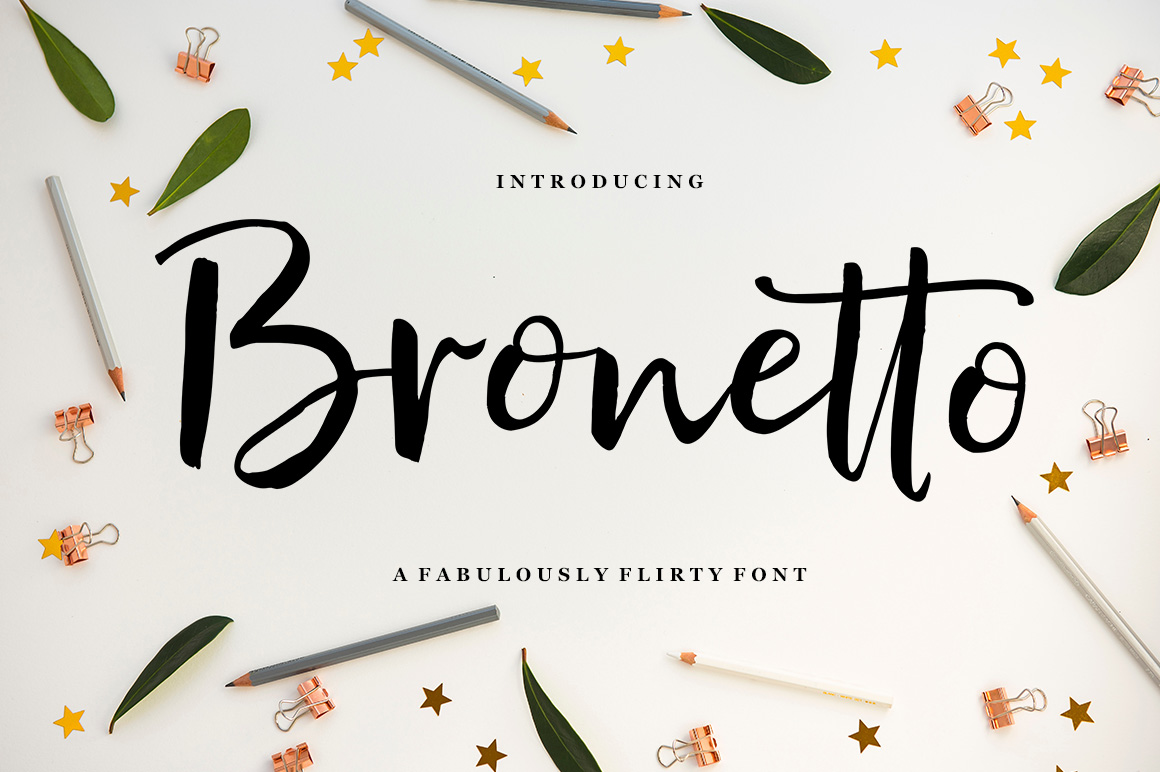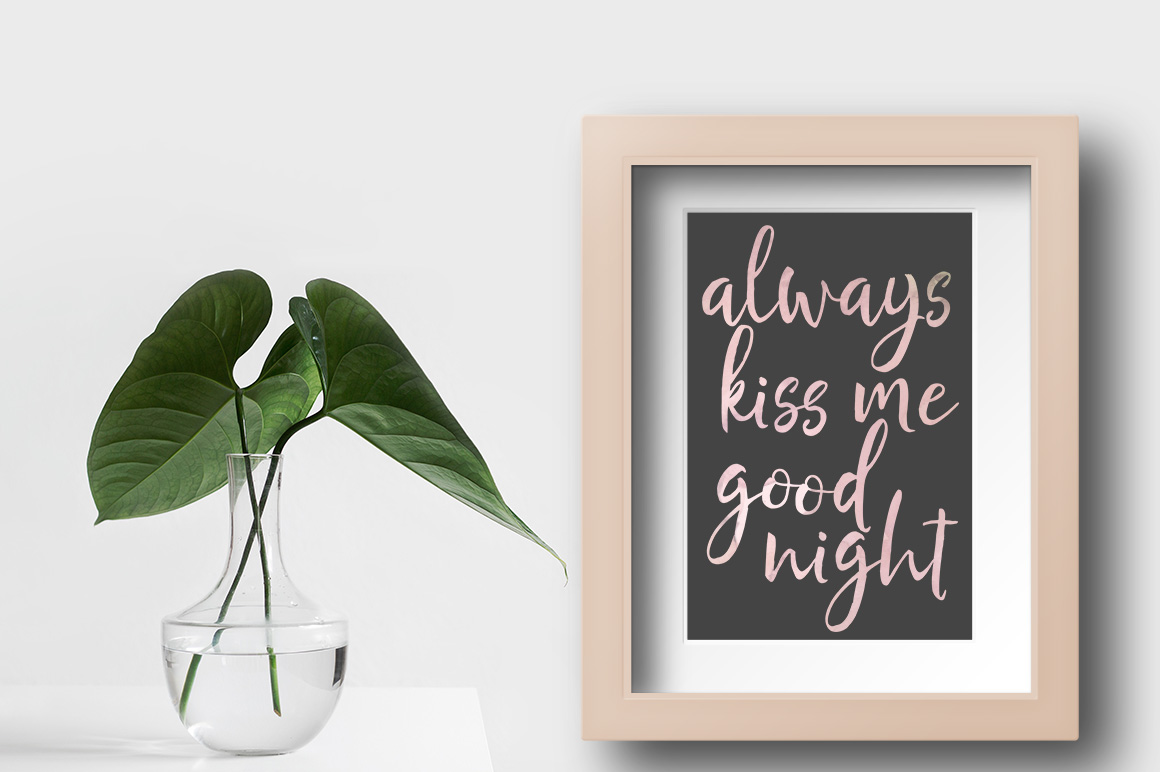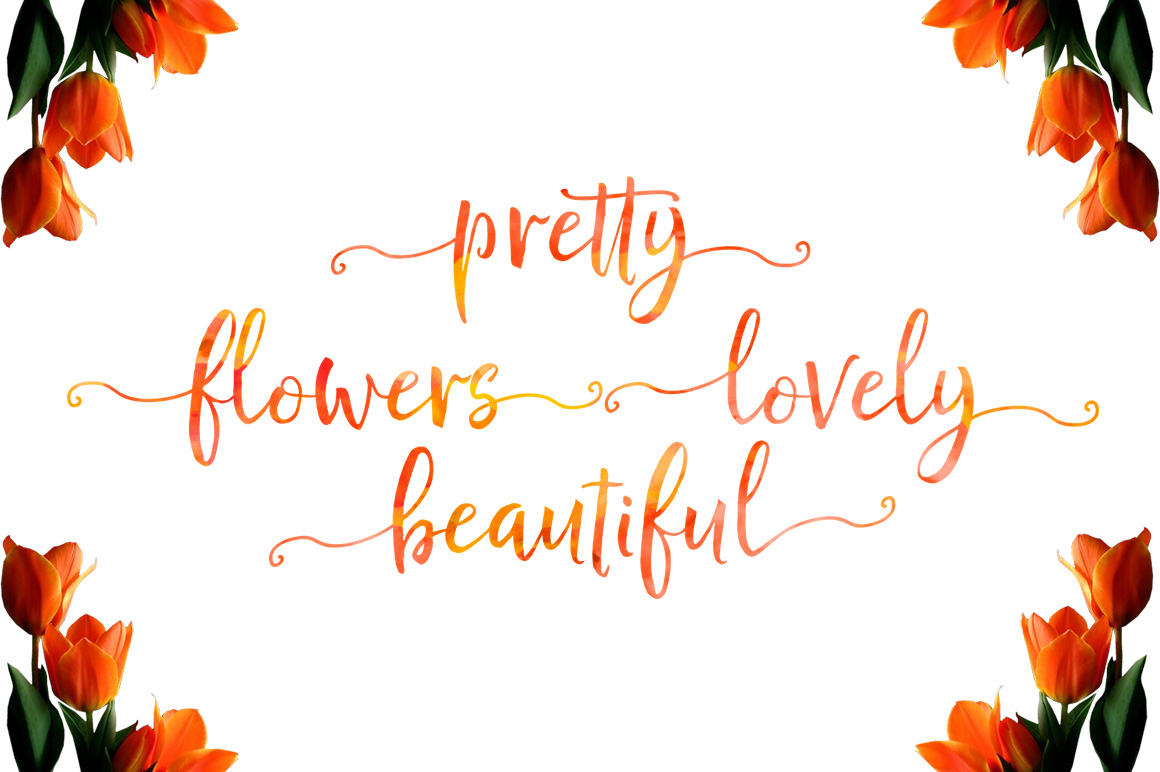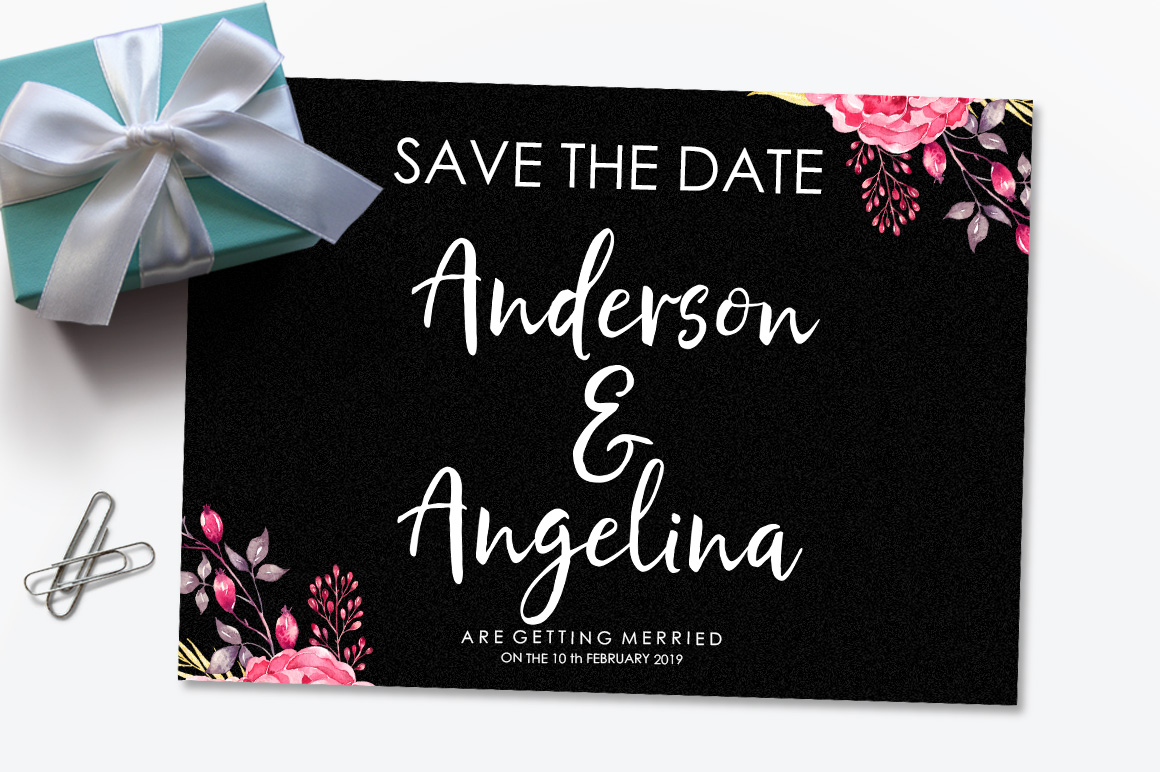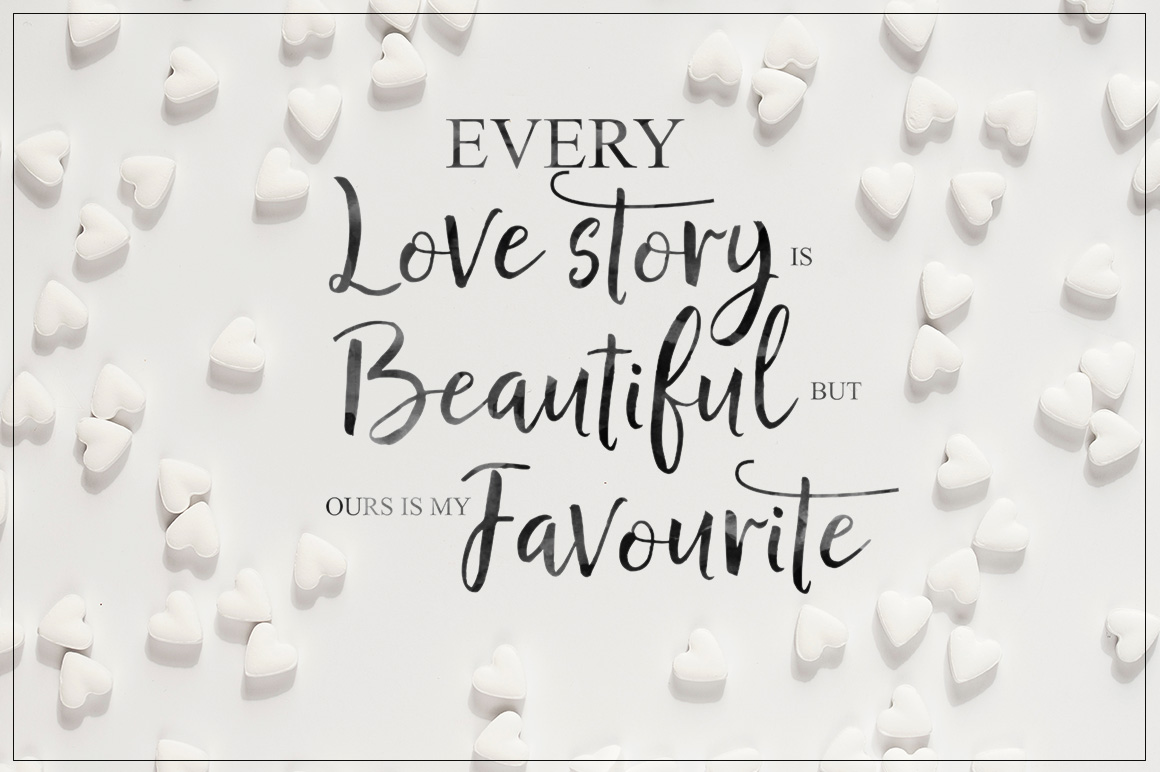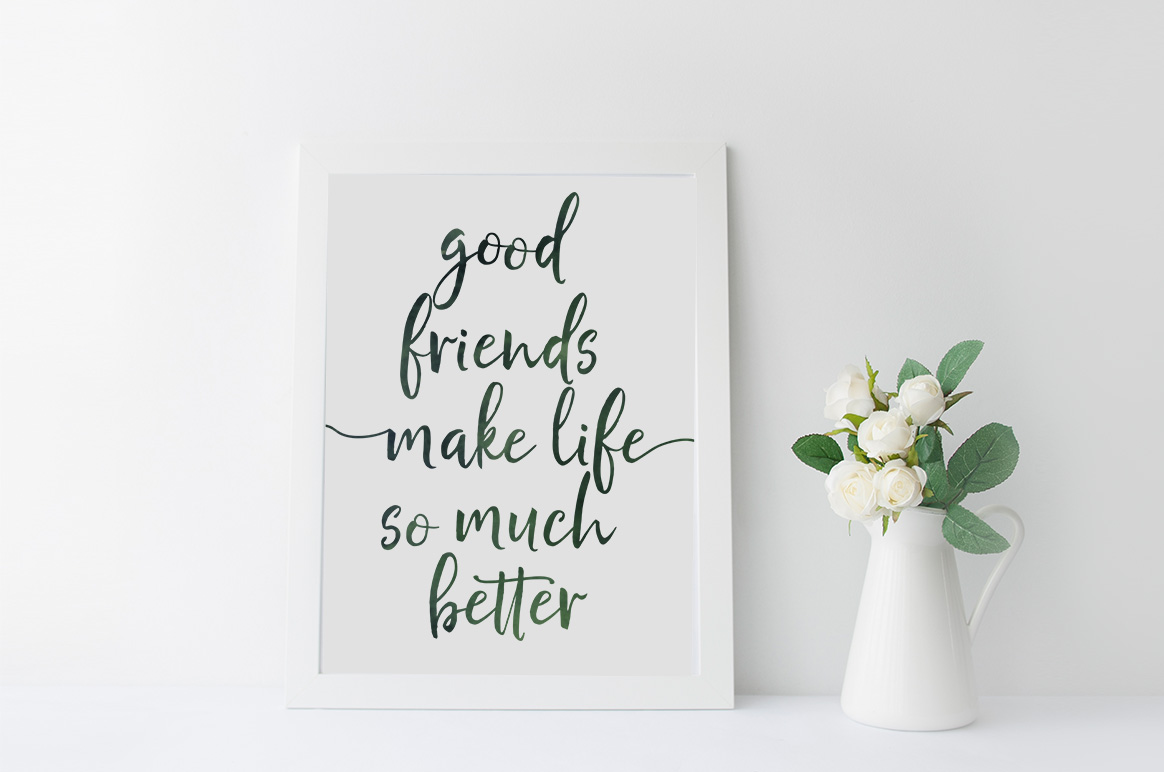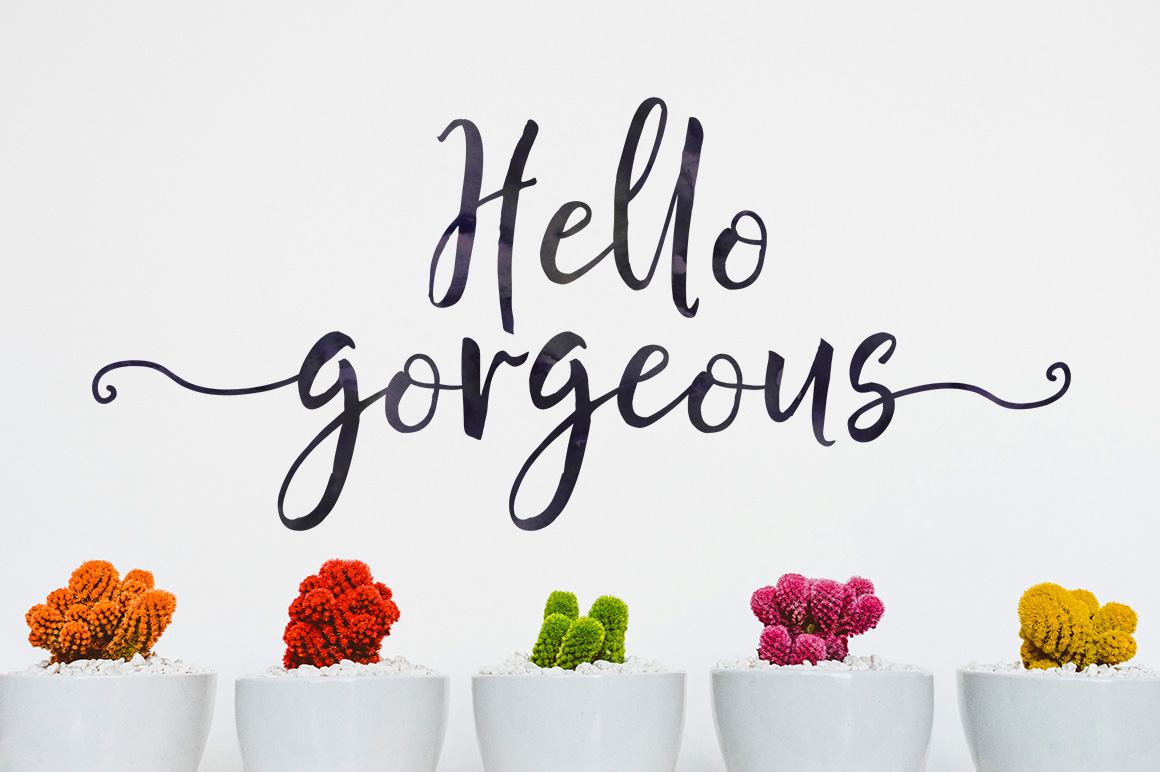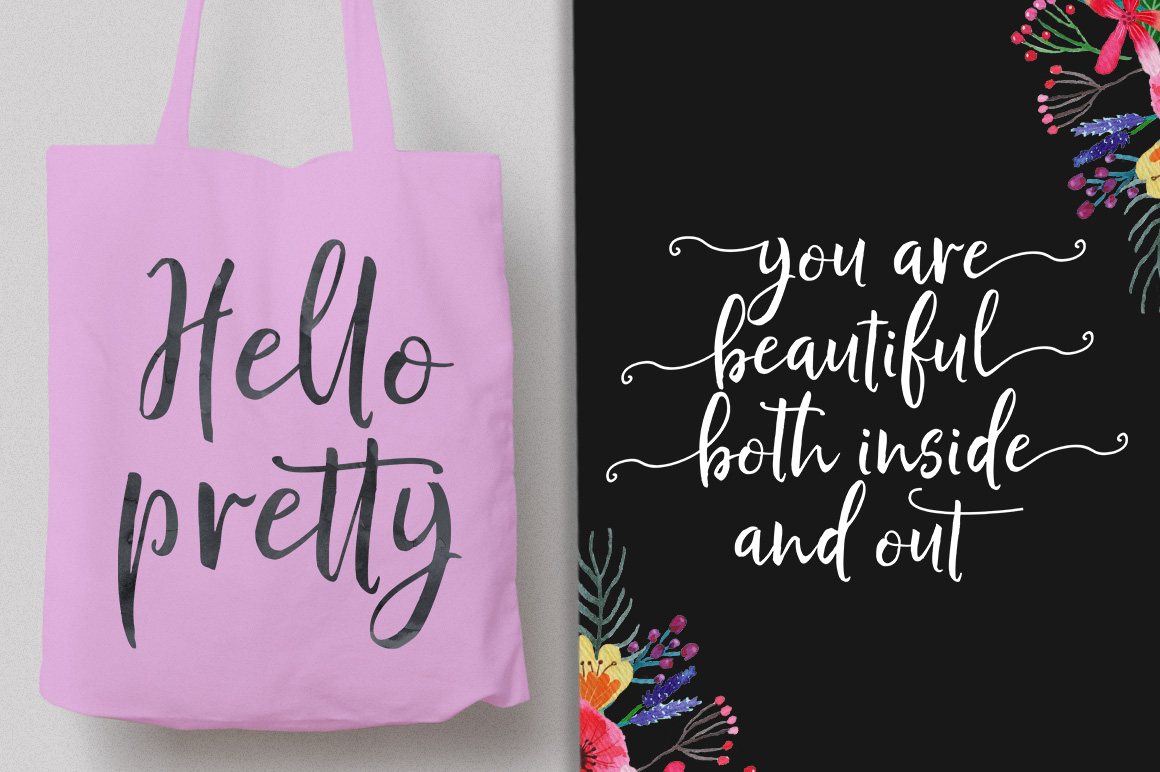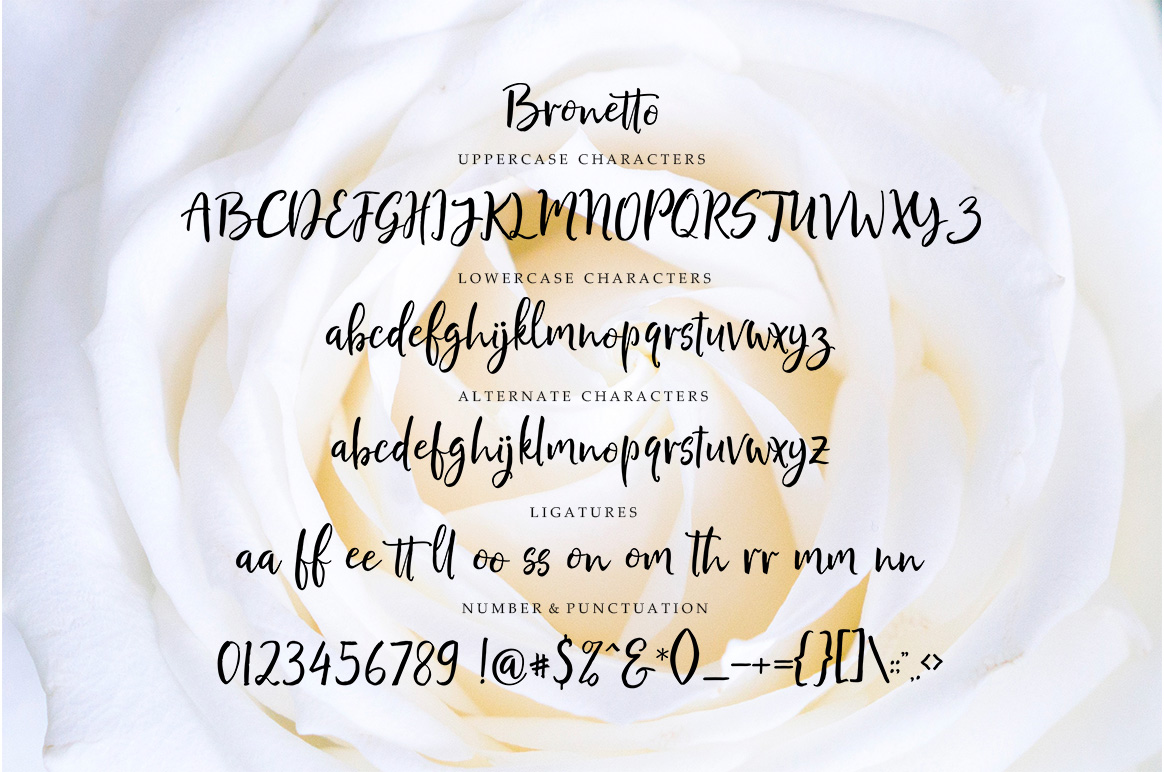
Bronetto Font
About Bronetto Font
Bronetto Script is a modern font that bears a lot of energy in form in style. This script is beautiful and elegant, and can be used to enhance any design or project.